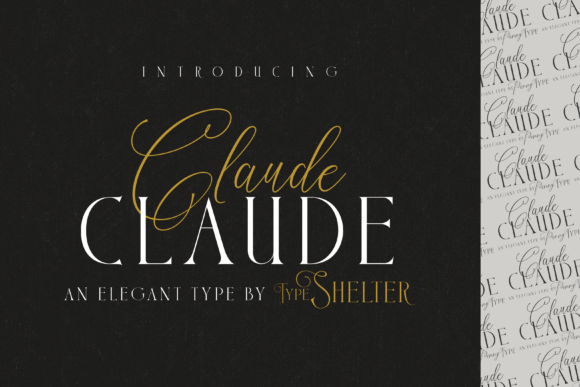
Introducing Claude Font, an exquisite and vivacious duo font that unveils a world of creativity, inviting you to embark on a typographical adventure like no other. This captivating serif font family, meticulously crafted by typeshelterbdg, is a symphony of elegance and playfulness, perfectly suited for those seeking unique and captivating designs.
With Claude Font, the possibilities are limitless. Let your imagination soar as you effortlessly mix and match the serif and script fonts, creating designs that are both visually stunning and deeply meaningful. Whether you're designing wedding invitations that exude timeless romance or crafting logos that radiate a touch of sophistication, Claude Font will elevate your creations to new heights.
Immerse yourself in the world of Claude Font and discover a kaleidoscope of design possibilities. Express your creativity through heartfelt wedding signage that captures the essence of your love story. Create marketing materials that leave a lasting impression, captivating your audience with their elegance and charm. Unleash your inner artist and create social media posts that ignite engagement and spark conversations.
Claude Font is more than just a font; it's an experience that will transform your design journey. Its versatility knows no bounds, allowing you to craft designs that resonate with your unique vision and style. Embrace the allure of Claude Font and unlock a world of design possibilities that will leave you breathless.